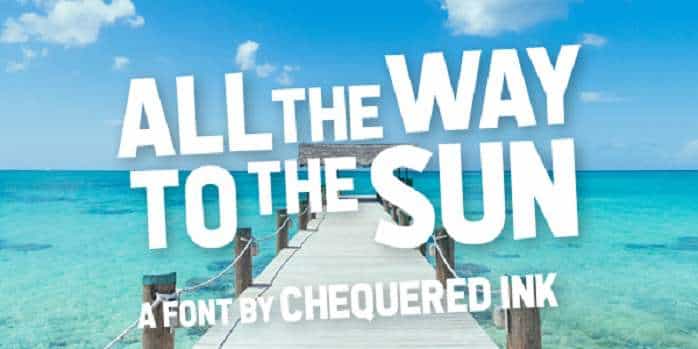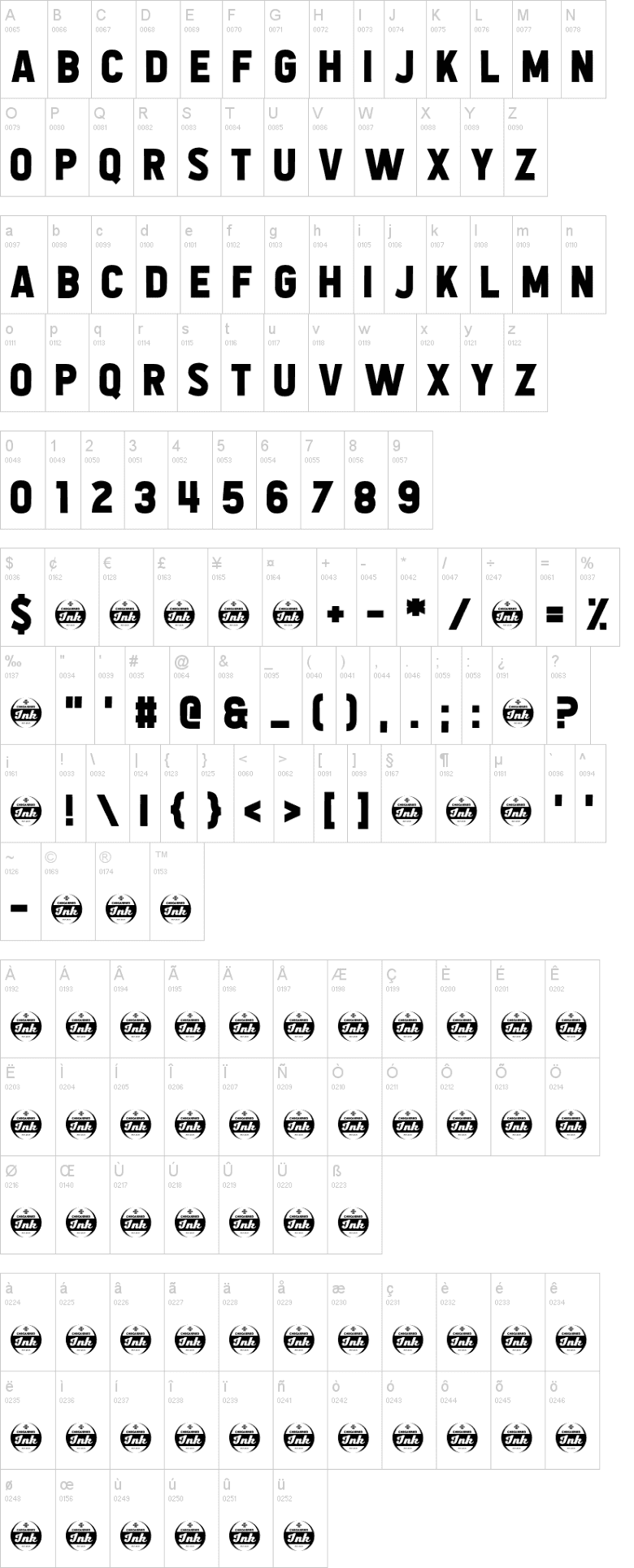
Discover All the Way to the Sun Font, part of the Sans Serif collection—a versatile and unique font perfect for adding a personal touch to your projects. Download it for free and enjoy crafting designs with style, from invitations to social media posts. This font is available exclusively for personal use, giving you the freedom to create without limits. Unlock your creativity with All the Way to the Sun Font today!